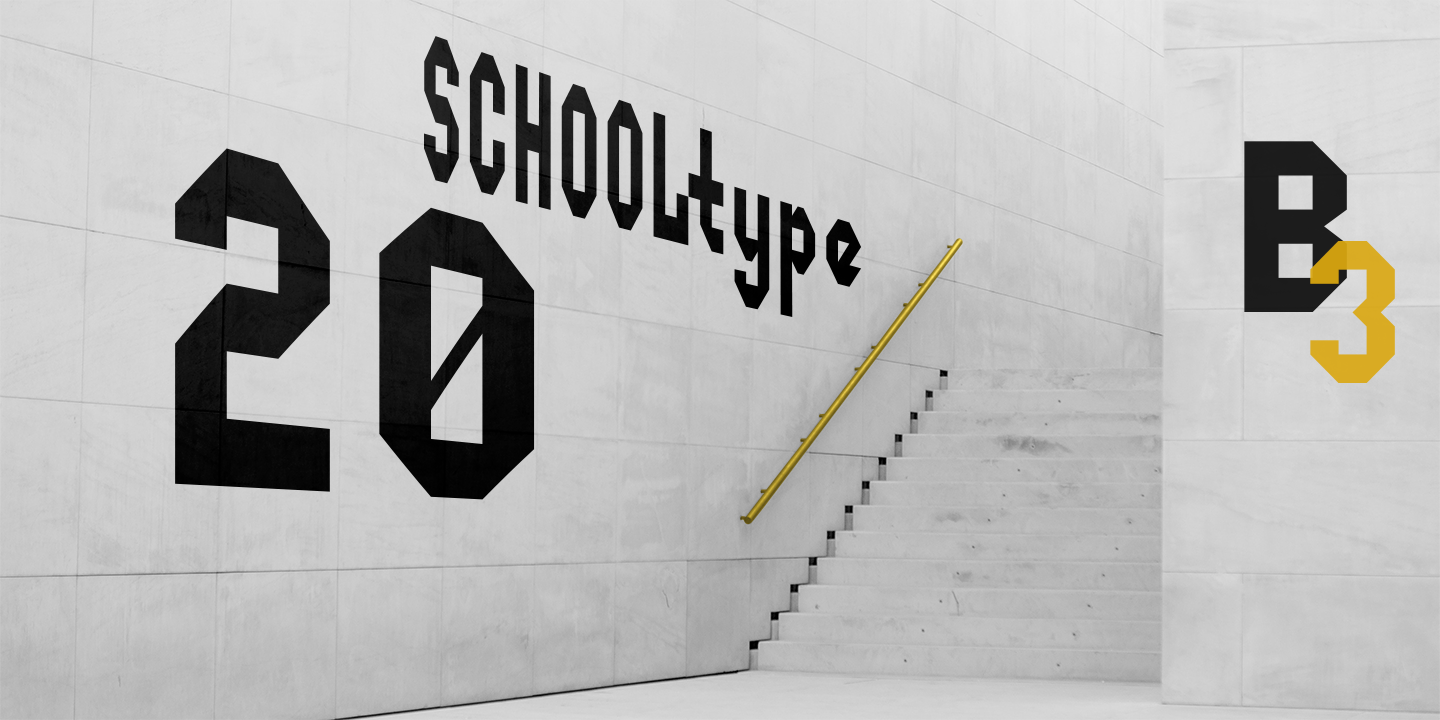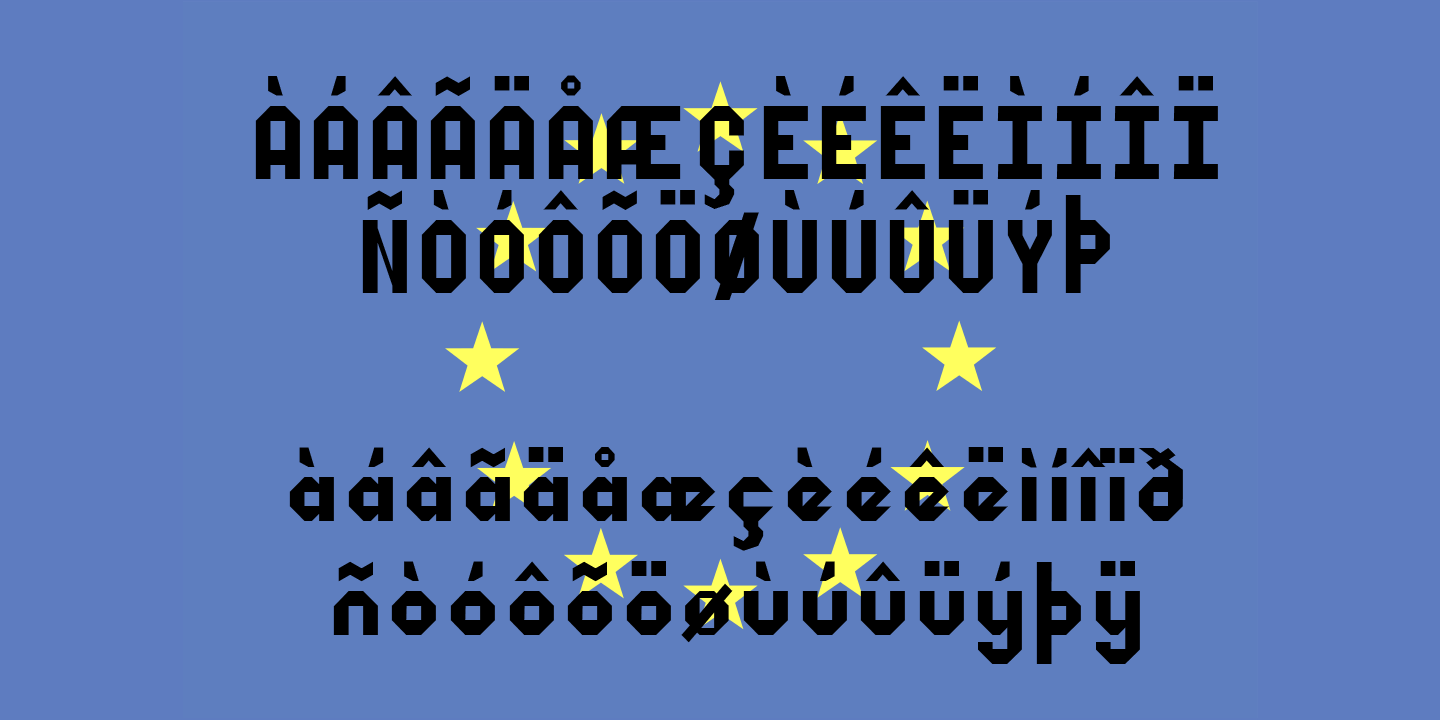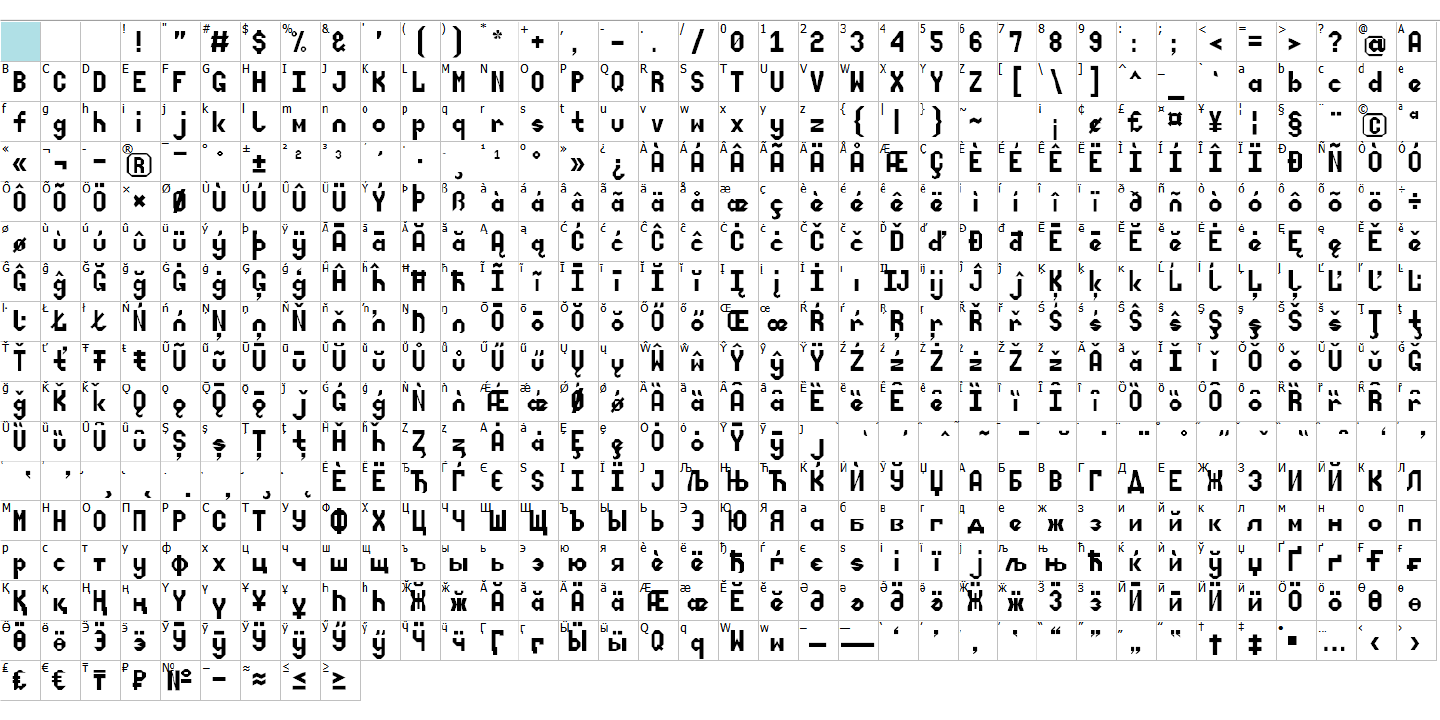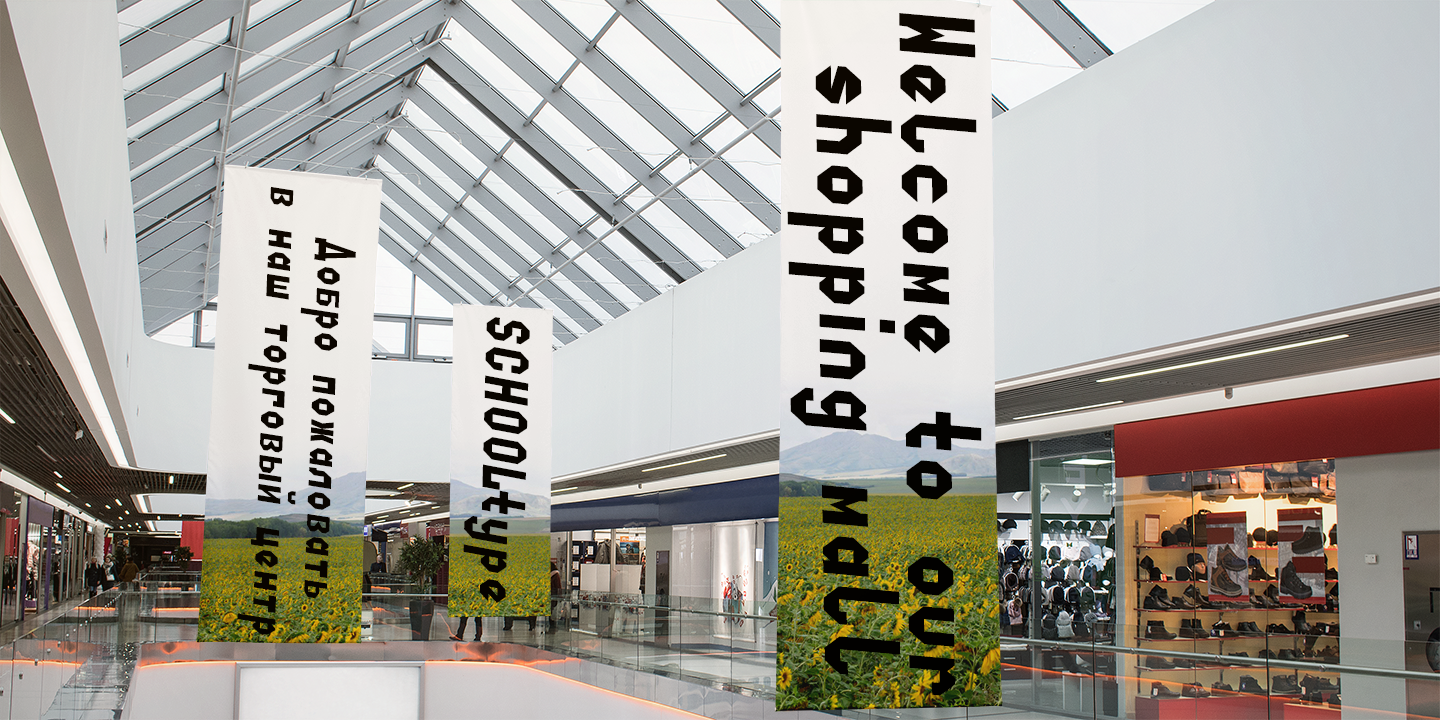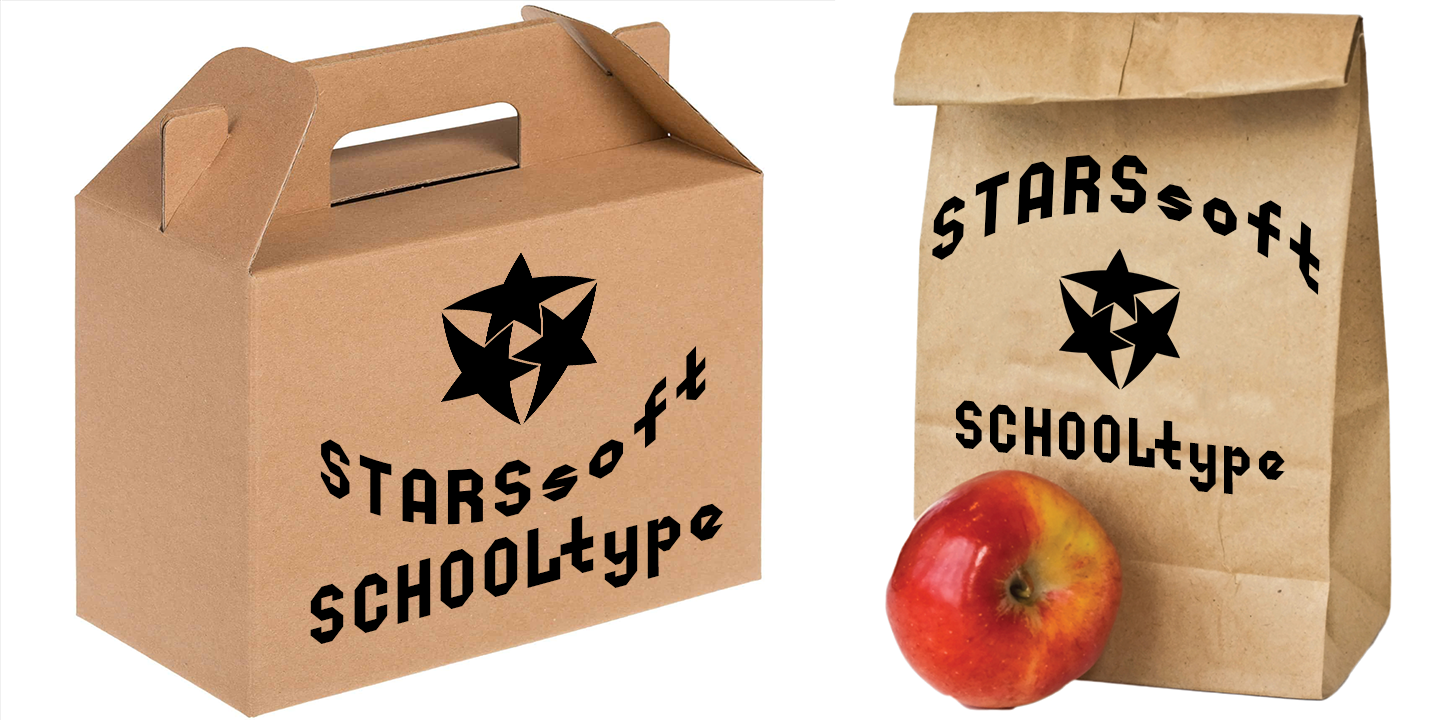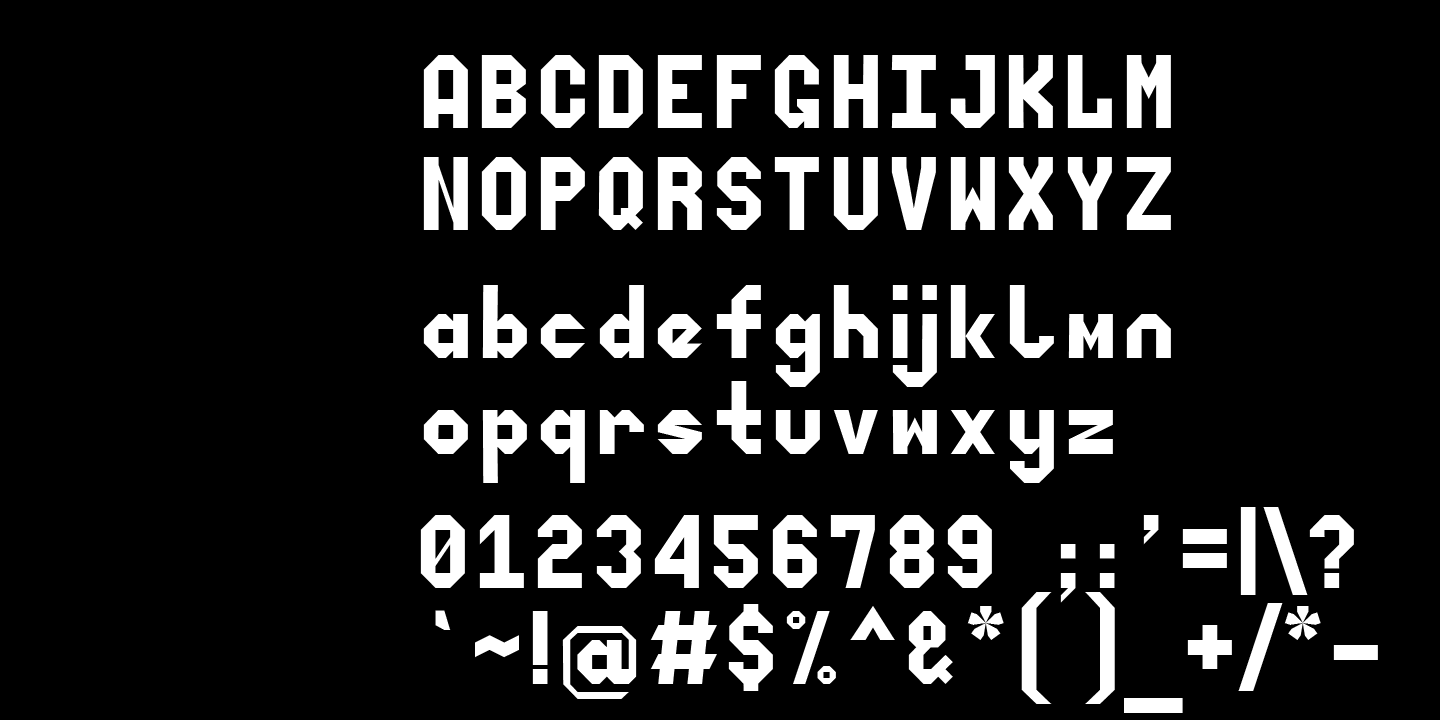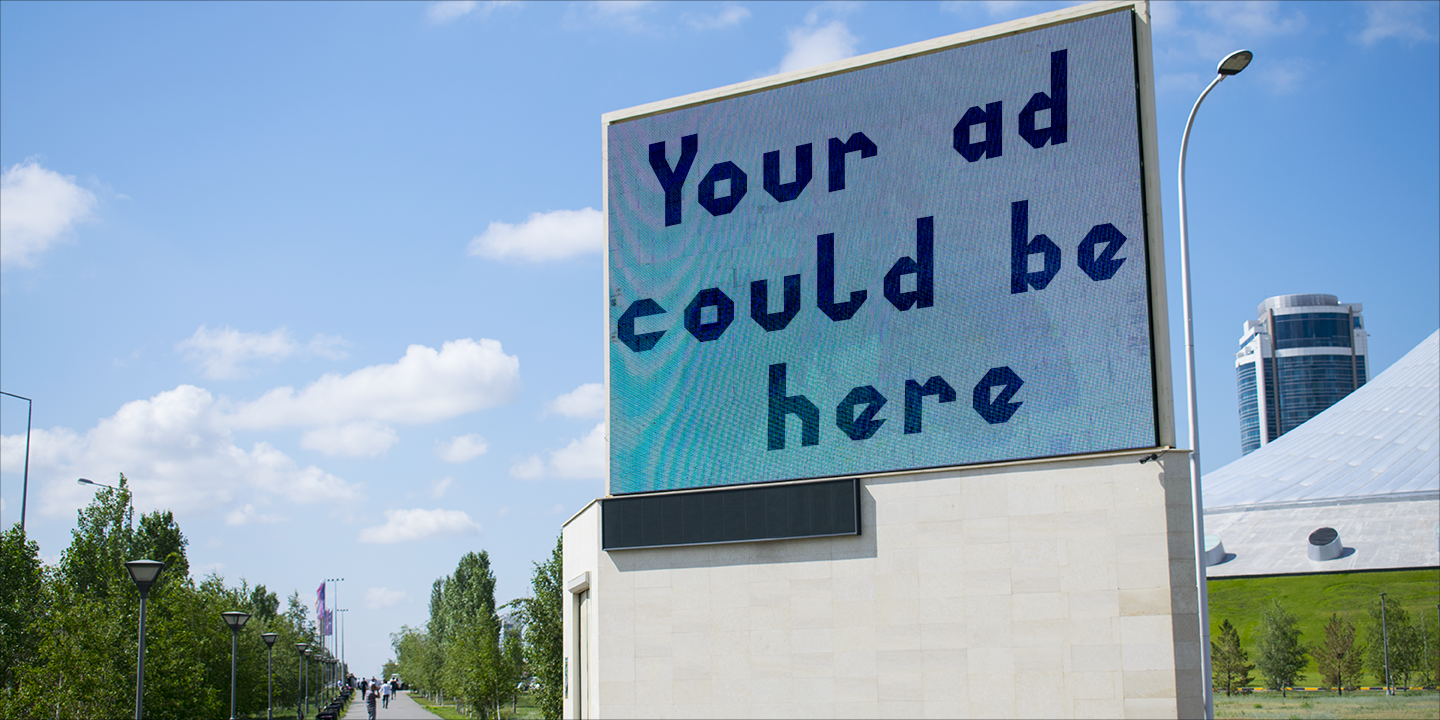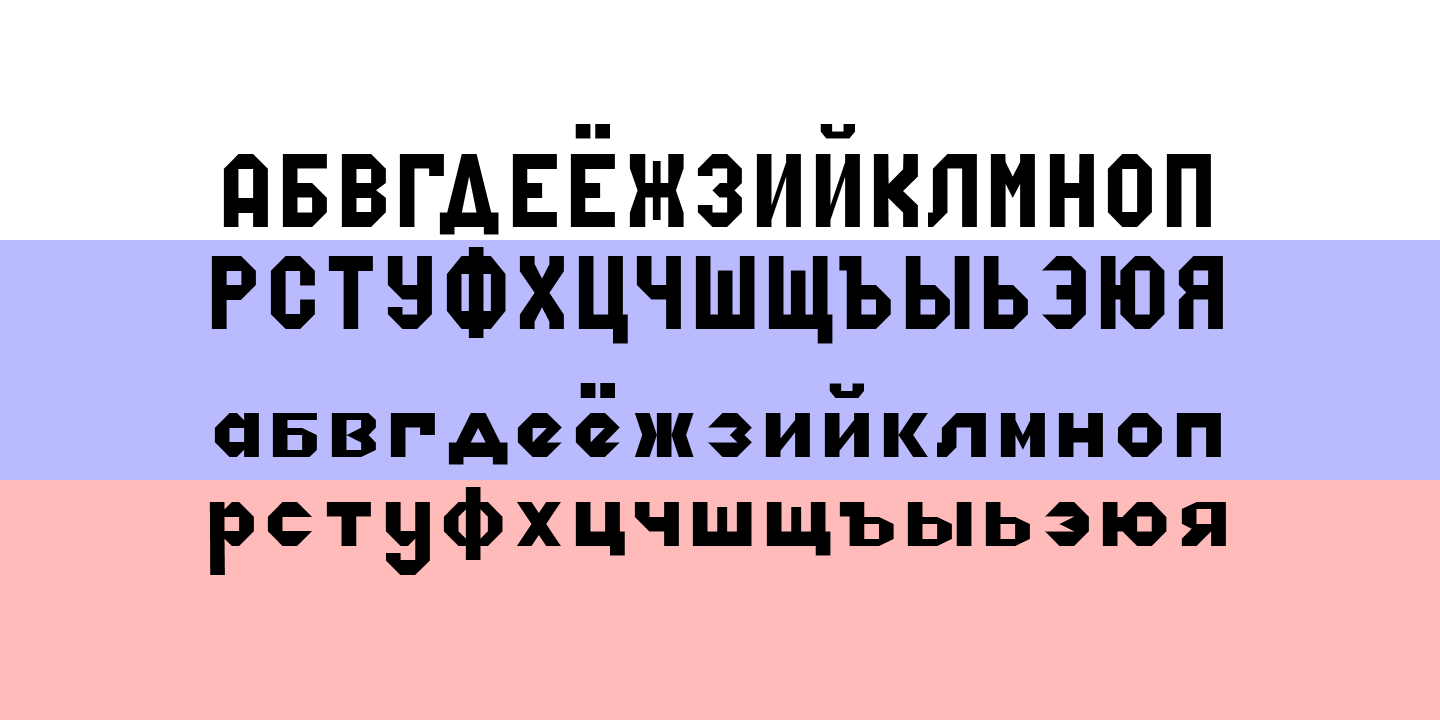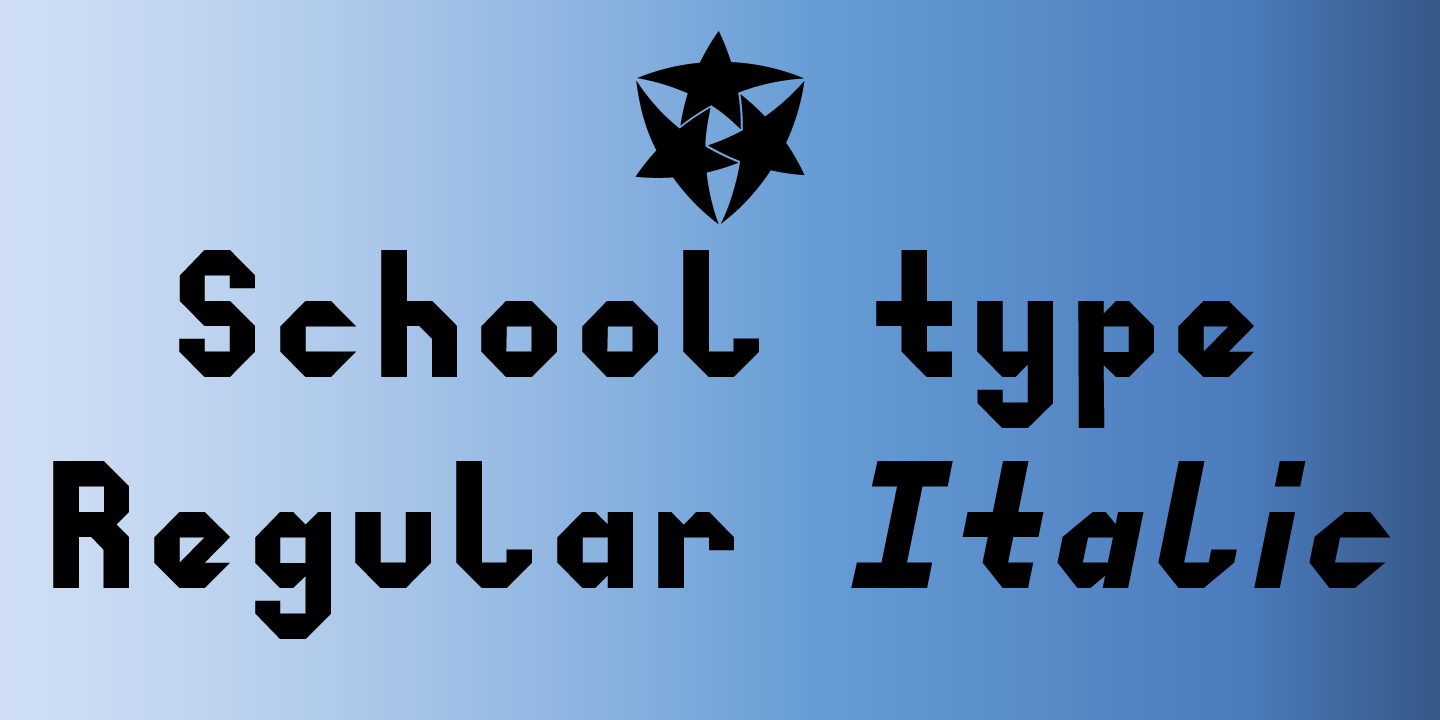
The decorative font "SchoolType" came straight from our school notebooks. We painted these letters in our notebooks, but now they can be printed on a computer. All uppercase Latin letters have the same width, which is ideal for designers.
As always, we offer you a font with support for many languages. Standard and Latin Extended support such languages - English, Danish, Spanish, German, Norwegian, Polish, Portuguese, French, Swedish. Standard and extended Cyrillic are supported by languages - Russian, Belarusian, Bulgarian, Macedonian, Serbian, Ukrainian, Kazakh, Kyrgyz.